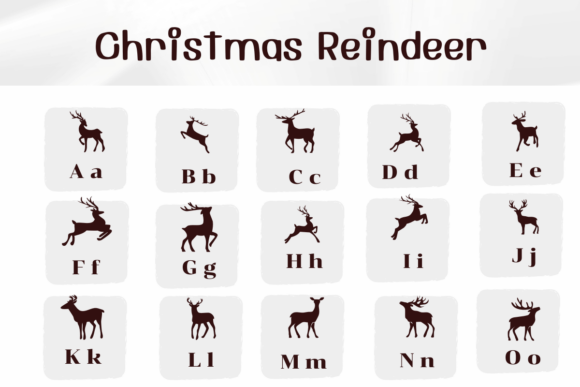
Christmas Reindeer Font
Christmas Reindeer is a dingbats font with a sketched style. This font can enhance your creative projects such as wedding invitations, DIY, crafts, decorations, logos, and many other creative ideas.